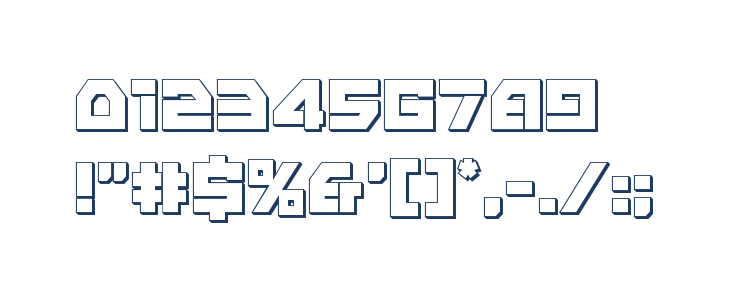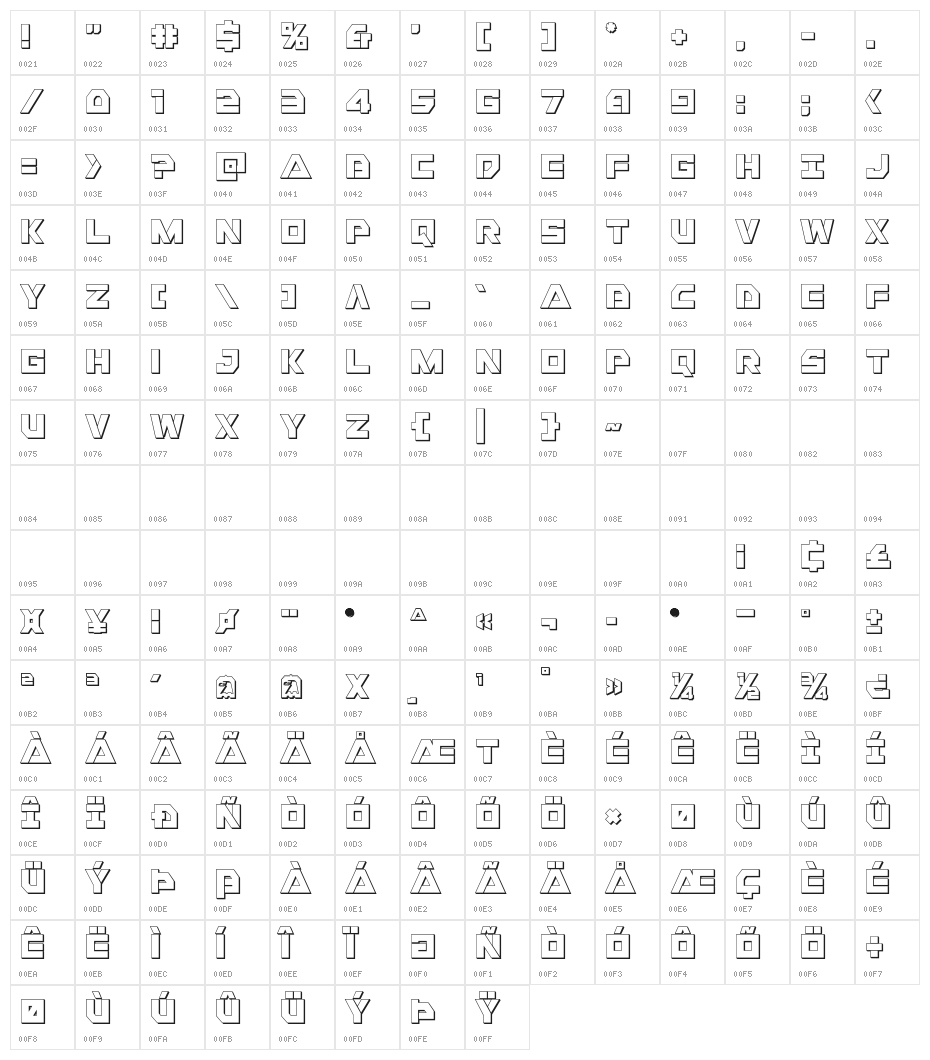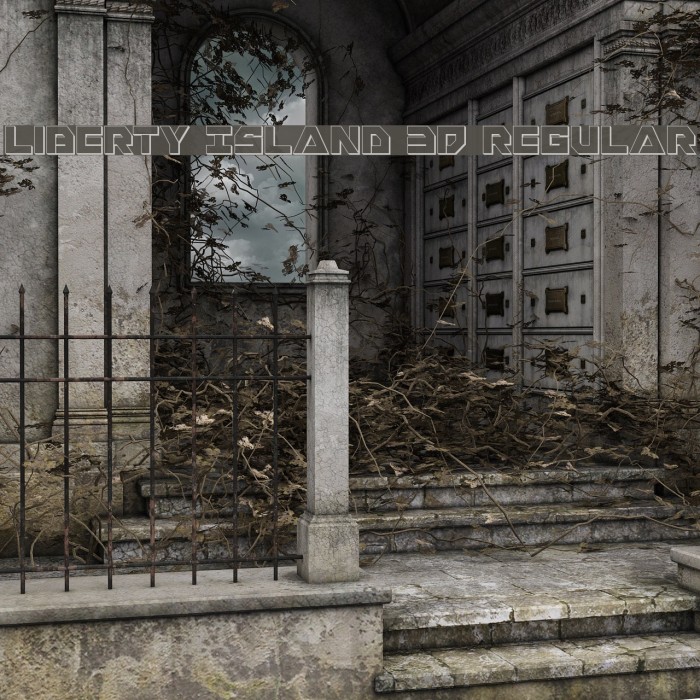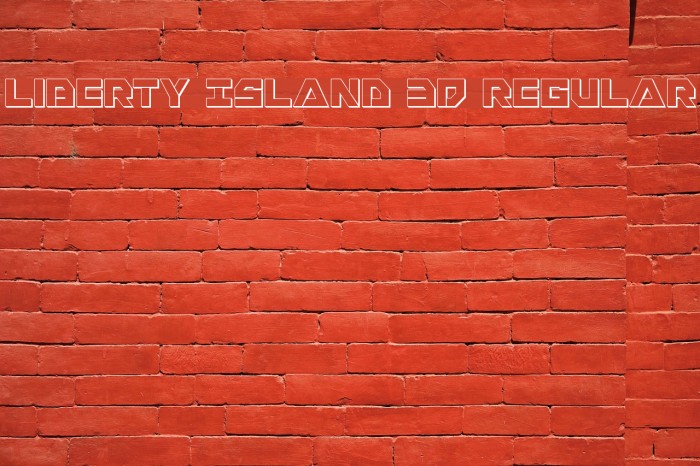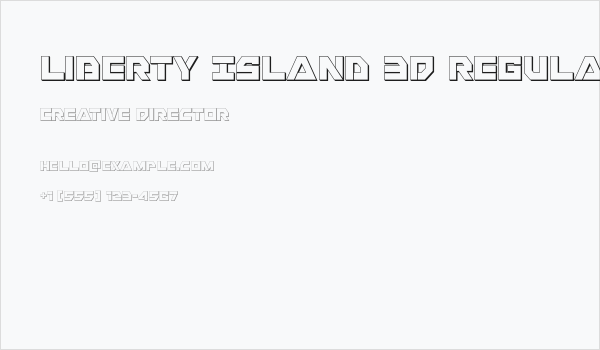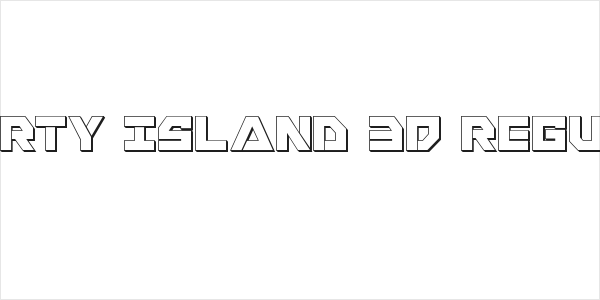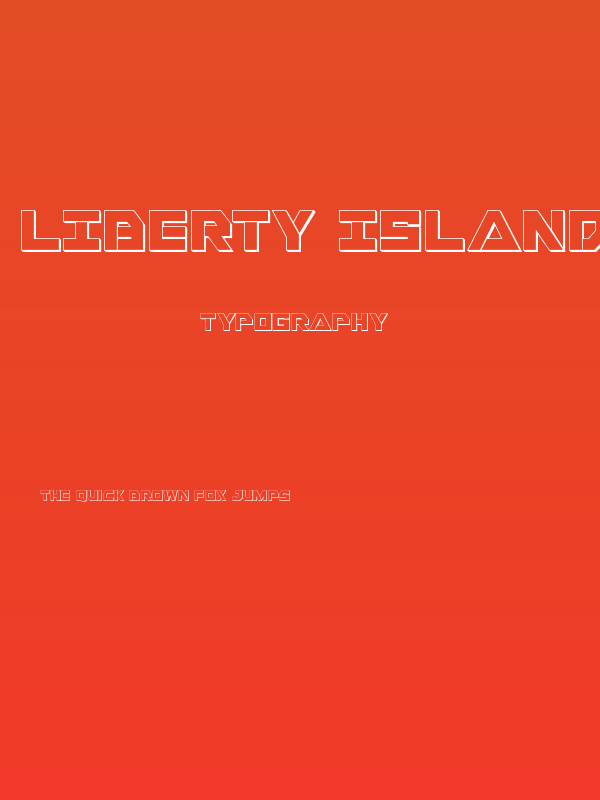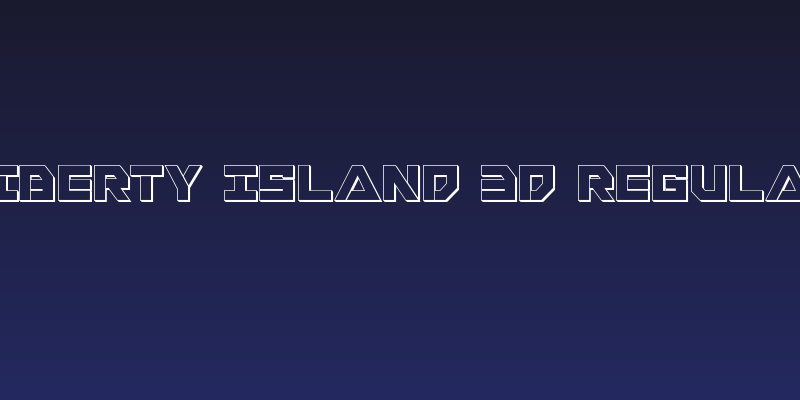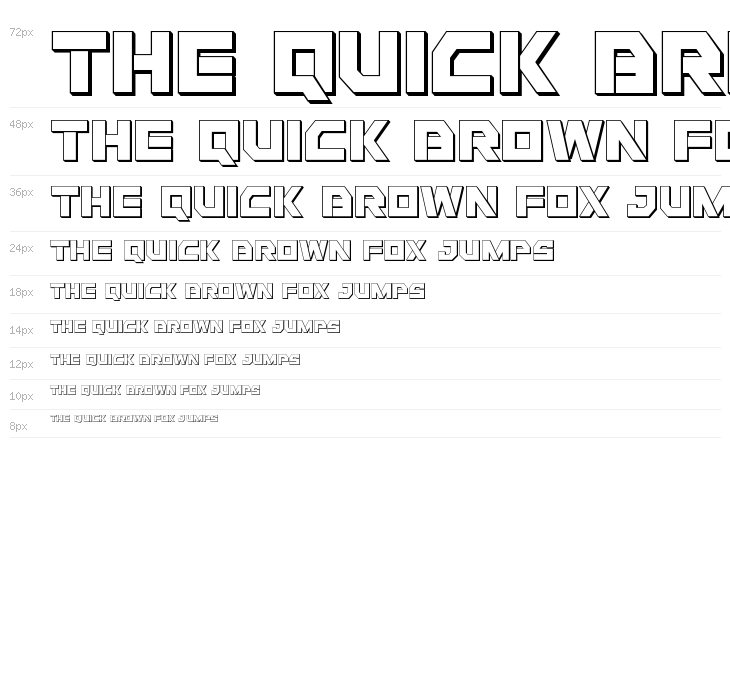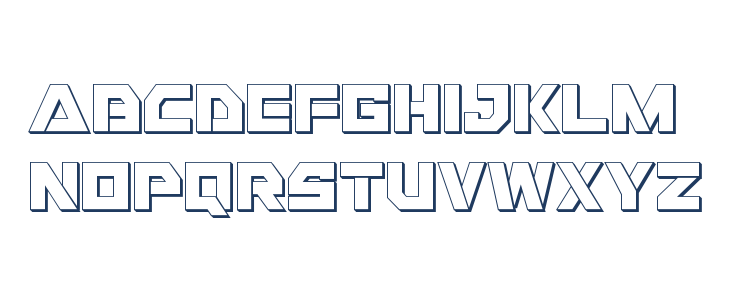
Liberty Island 3D Regular Font
Liberty Island 3D Regular Description
This font features a bold, three-dimensional geometric design with a distinct blocky appearance. Each character is outlined, creating a hollow effect that enhances its 3D look. The angular shapes and sharp edges give it a futuristic and industrial feel, making it stand out in any design. The uppercase letters are consistent in height, while the numerals and special characters maintain the same bold style, ensuring uniformity across all text. This font is ideal for projects that require a modern and impactful visual statement.